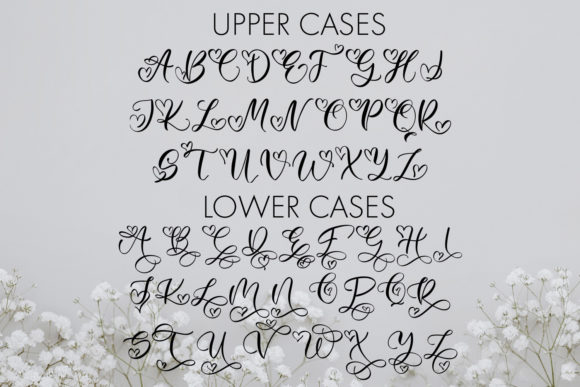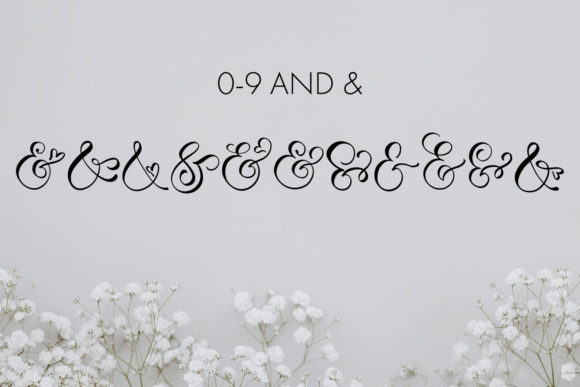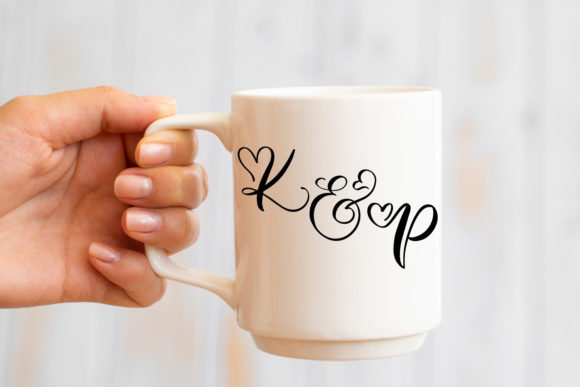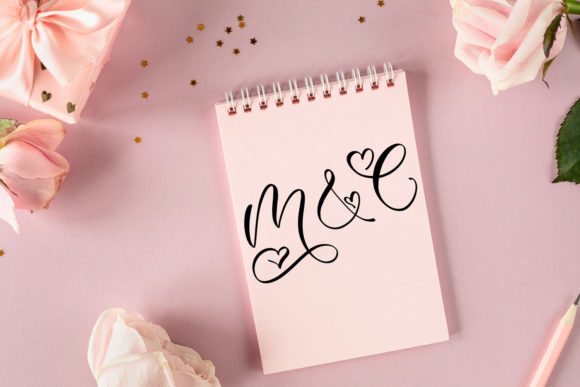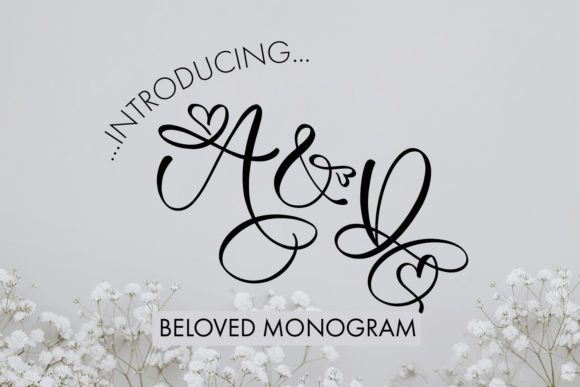
Introducing the Beloved Monogram Font: Elevate Your Designs with Organic Elegance
In the world of typography, a well-crafted font can make all the difference in transforming a design from ordinary to extraordinary. For designers, crafters, and creatives seeking to add a touch of sophistication and whimsy to their projects, the Beloved Monogram Font is a treasured find. This exquisite decorative font is distinguished by its organic and beautiful aesthetic, complete with lovely ornaments that are sure to captivate.
The Charm of Beloved Monogram Font
Beloved Monogram is more than just a font; it’s an artistic statement. Its organic nature lends a hand-crafted feel to any design, making it perfect for projects that require a personal touch. Whether you’re working on wedding invitations, branding materials, packaging, or digital content, this font’s versatility ensures it will seamlessly integrate and elevate your creations.
Key Features of Beloved Monogram Font
- Organic and Decorative: The font boasts an organic design with intricate details and ornaments, making it stand out in any project.
- Versatile: Suitable for a wide range of applications, from digital designs to print materials.
- Elegant and Whimsical: Strikes the perfect balance between elegance and playfulness, allowing designers to add a unique flair to their work.
Applications of Beloved Monogram Font
The possibilities are endless with the Beloved Monogram Font. Here are a few ideas to get you started:
- Wedding and Event Planning: Use it for wedding invitations, save-the-date cards, and event banners to set a romantic and sophisticated tone.
- Branding and Packaging: Add a touch of elegance to your brand’s logo, product labels, and packaging to stand out in a crowded market.
- Digital Content: Enhance your blog posts, social media graphics, and website headers with a dash of personality and style.
- Crafting and DIY Projects: Perfect for crafters who want to add a professional and personalized touch to their handmade goods, such as custom signs, art pieces, and home decor.
Why Choose Beloved Monogram Font?
In a sea of fonts, Beloved Monogram stands out for its unique blend of organic charm and decorative flair. Here are a few reasons why it deserves a spot in your font library:
- Unique Aesthetic: Offers a distinctive look that will set your designs apart.
- High Versatility: Can be used across various projects and industries.
- Constant Inspiration: The beautiful ornaments and organic feel will inspire creativity and elevate your design work.
The Beloved Monogram Font is a beautiful addition to any designer’s or crafter’s toolkit. Its organic, decorative, and versatile nature makes it an invaluable asset for a wide range of projects. By incorporating this font into your work, you’ll not only add a touch of elegance and whimsy but also ensure your designs stand out. Whether you’re a seasoned professional or just starting out, Beloved Monogram Font is sure to become a favorite in your creative journey.